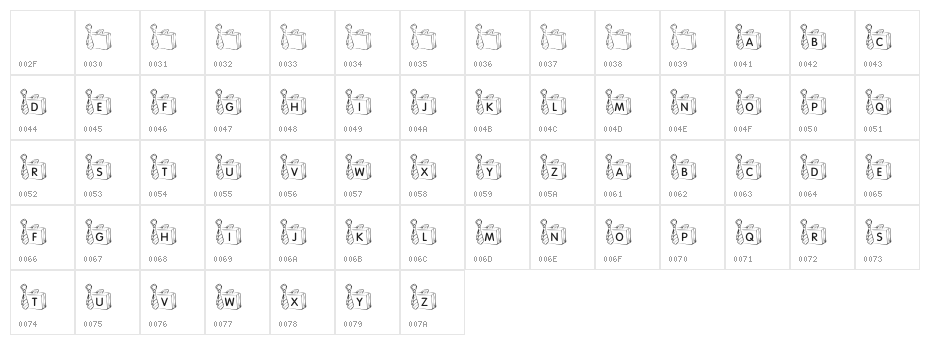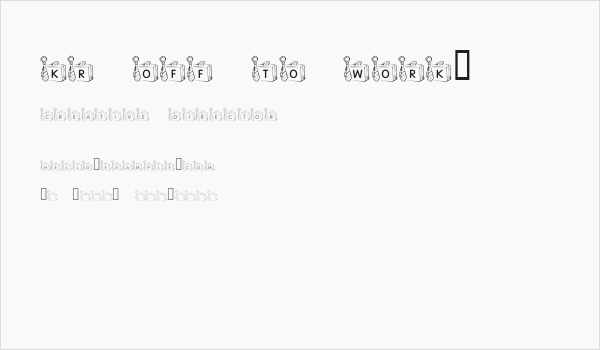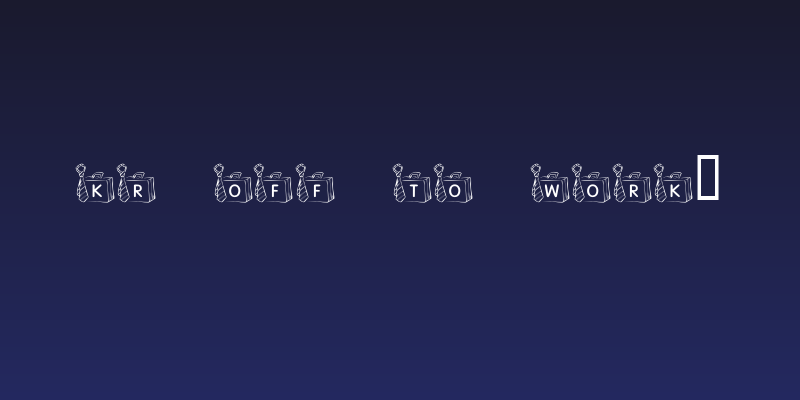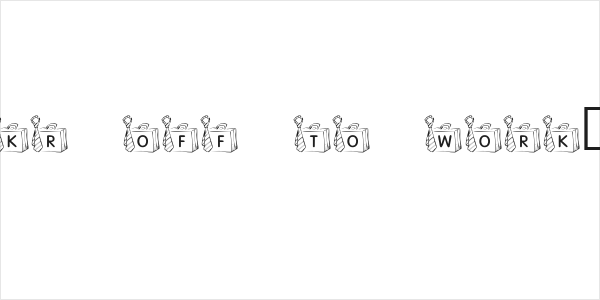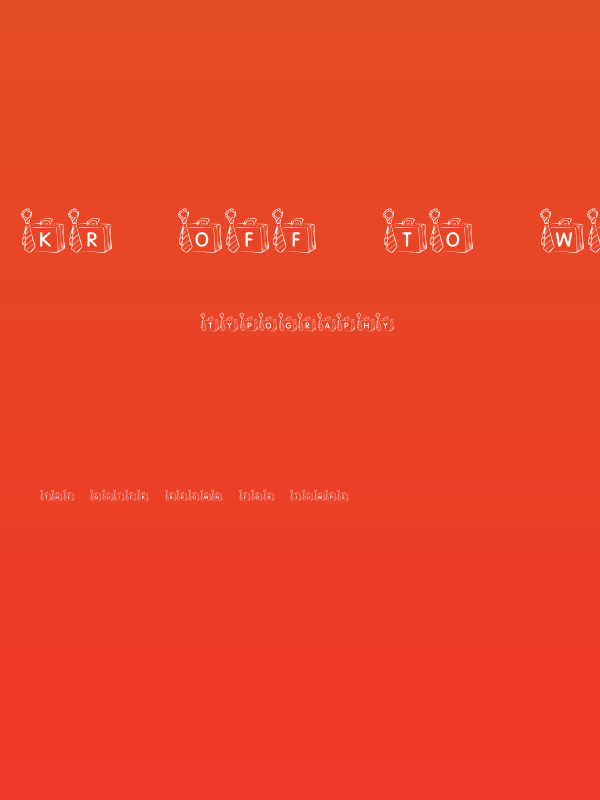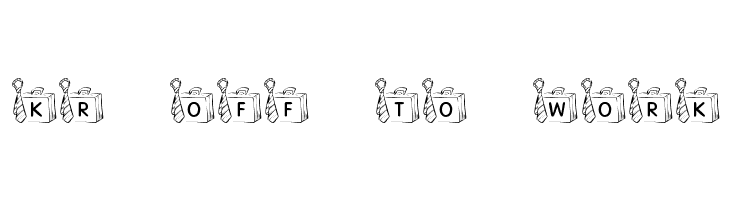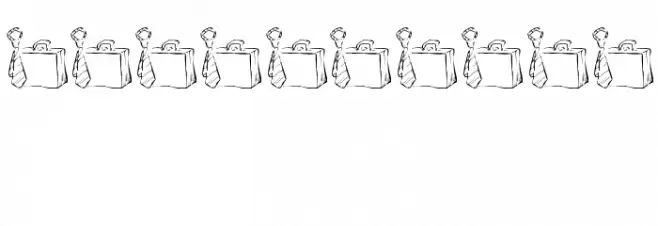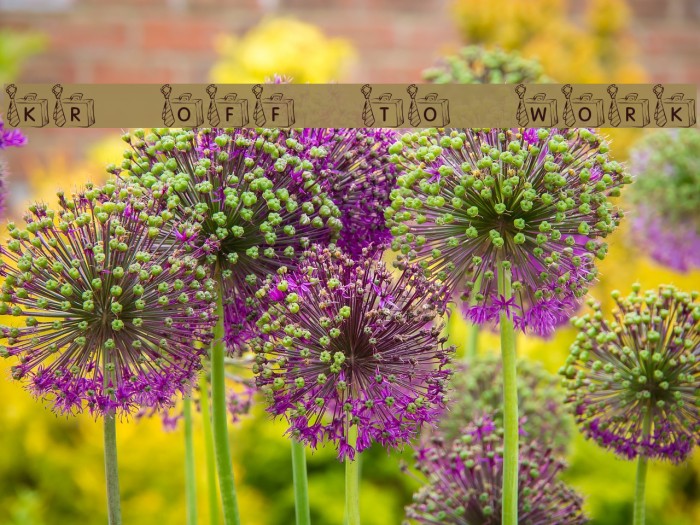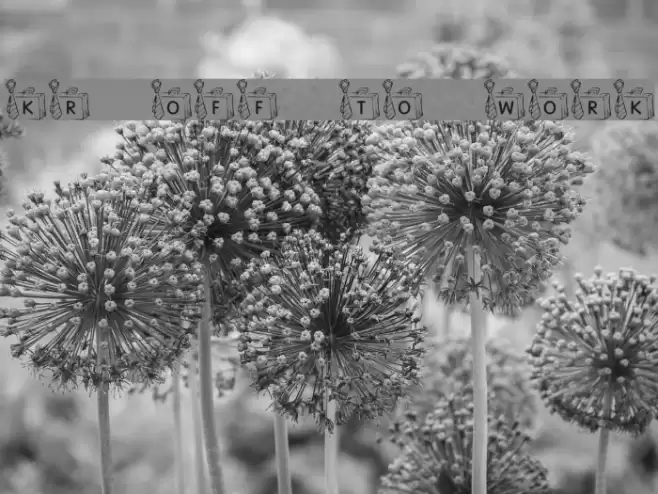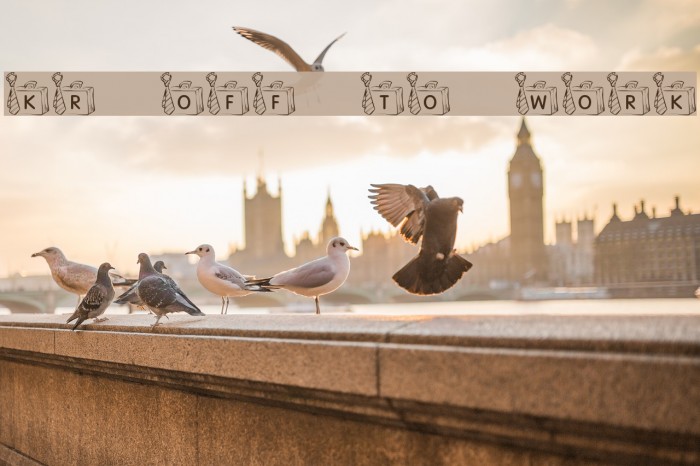
KR Off To Work! Font
| Nom | KR Off To Work! |
| Cas d'utilisation | Logos, Headlines, Invitations |
| Projets proposés | Ideal for business-themed invitations, playful corporate branding, office party materials, or any project needing a humorous professional touch. |
KR Off To Work!